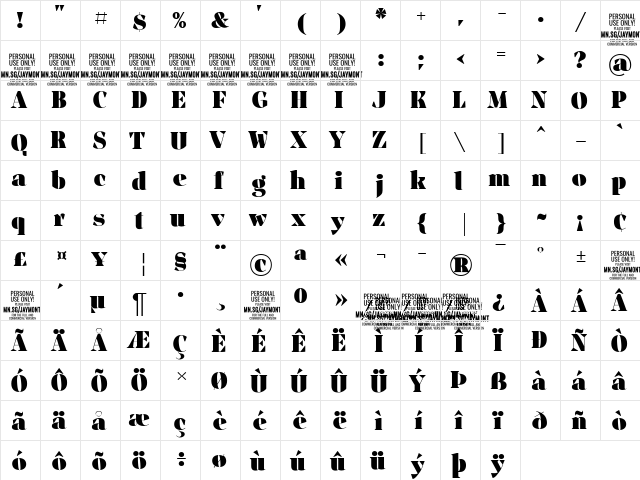
Jaymont PERSONAL Black
| Foundry | Mans Greback |
| Designer | Mans Greback |
Jaymont PERSONAL is a composed and adaptable typeface that performs quietly and consistently across a wide range of design contexts.